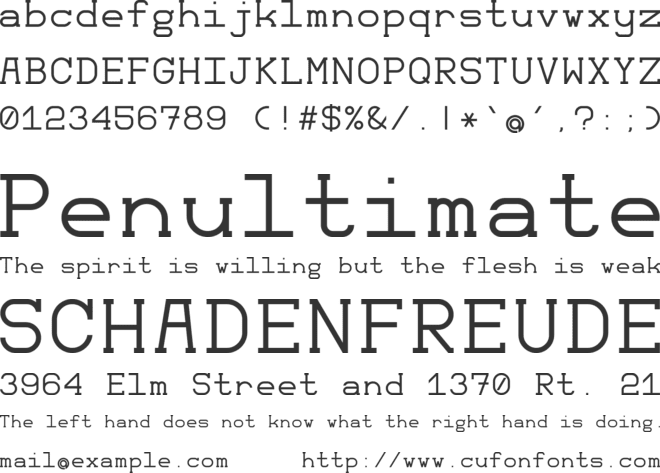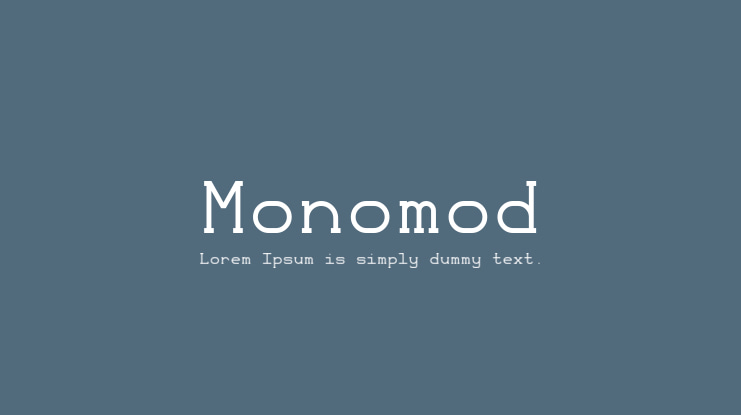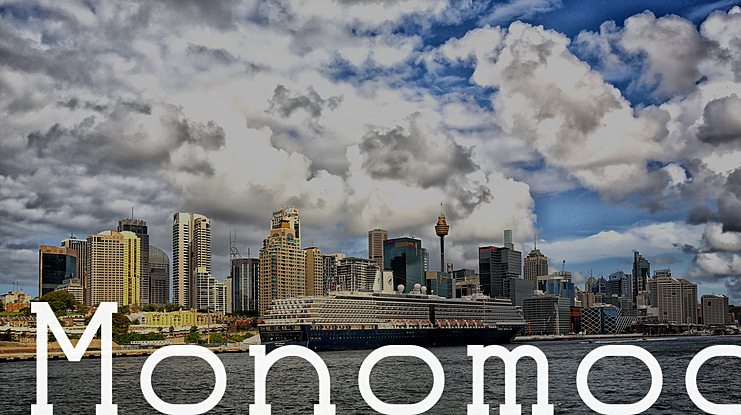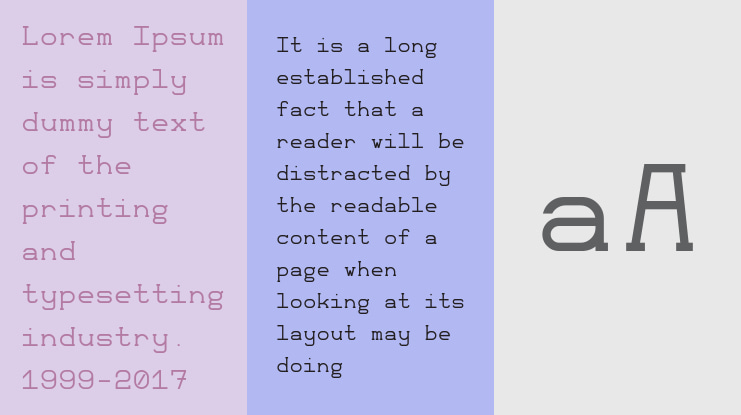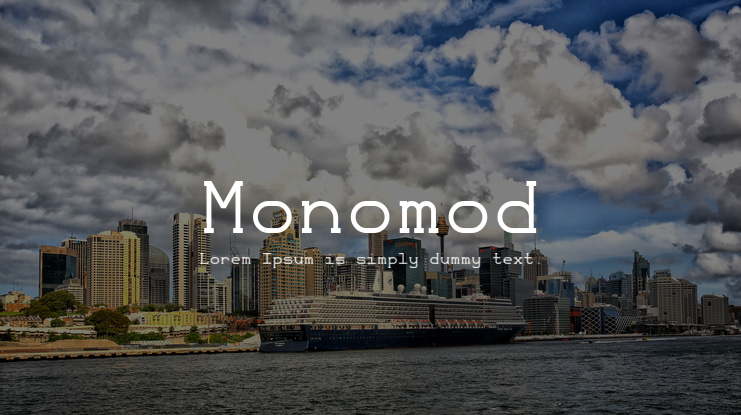
Monomod Font
This is another attempt at creating a useful monospaced font. It has a taller x-height than a lot of my previous fonts and some hint of slab serifs.